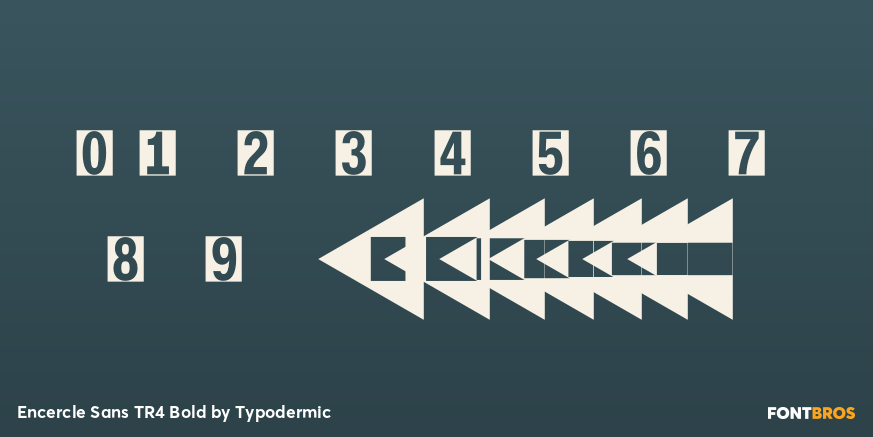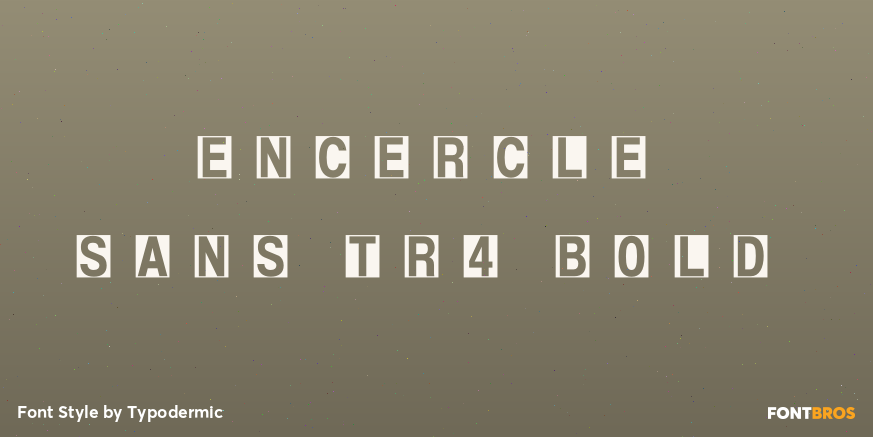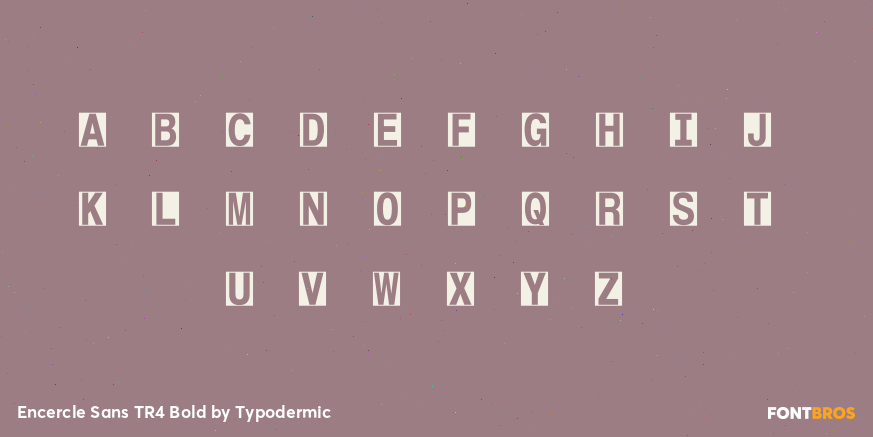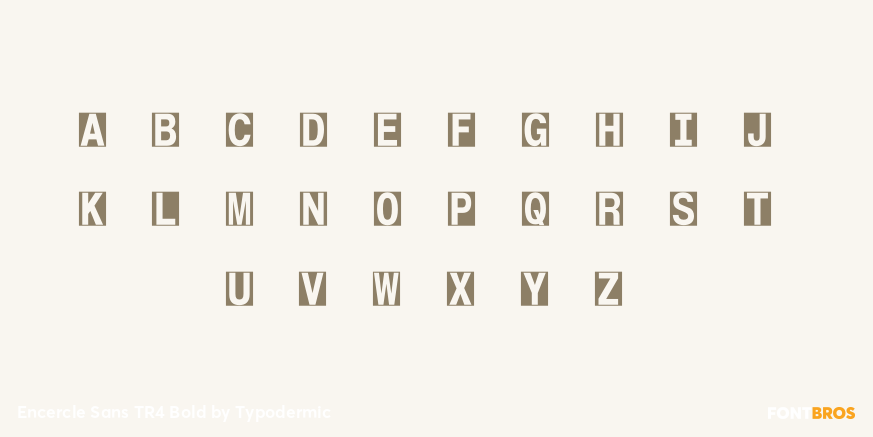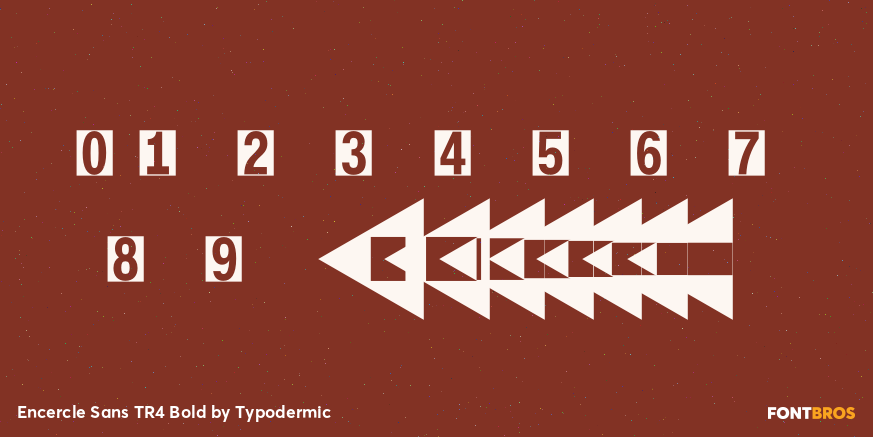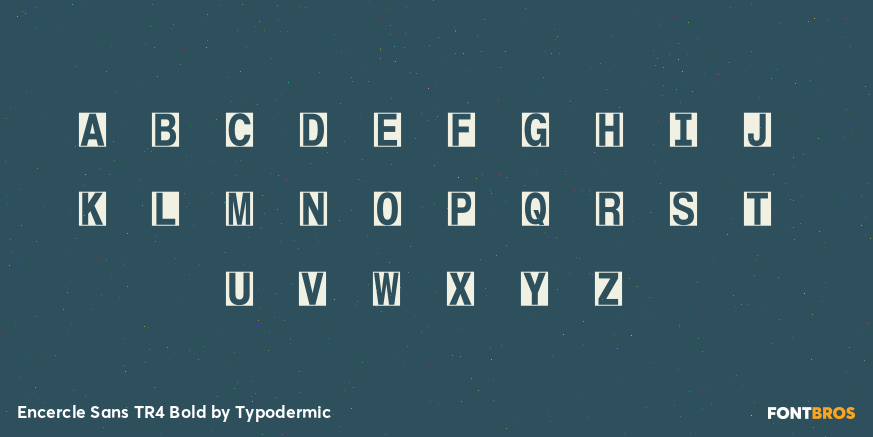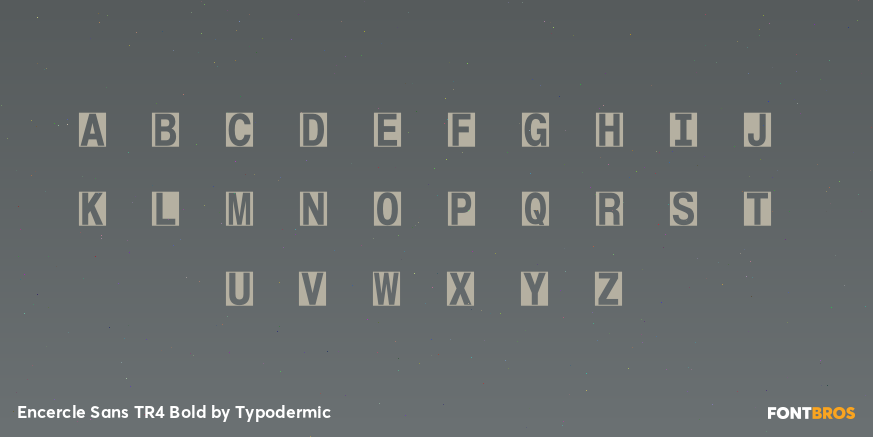
Encercle Sans TR4 Bold
Buy NowEncercle Sans TR4 mirrors the directional system with a left-pointing triangle that keeps its label centered as the text changes. TR4 Bold is the solid inverse partner with light lettering. It provides a filled selection or emphasis state rather than simply thickening the frame.
Use TR4 for previous-step references, return routes in visitor guides, left-hand component callouts, and reverse-order teardown or repair diagrams. It addresses searches for a left-triangle label font, back-step marker font, or editable return-direction callout.